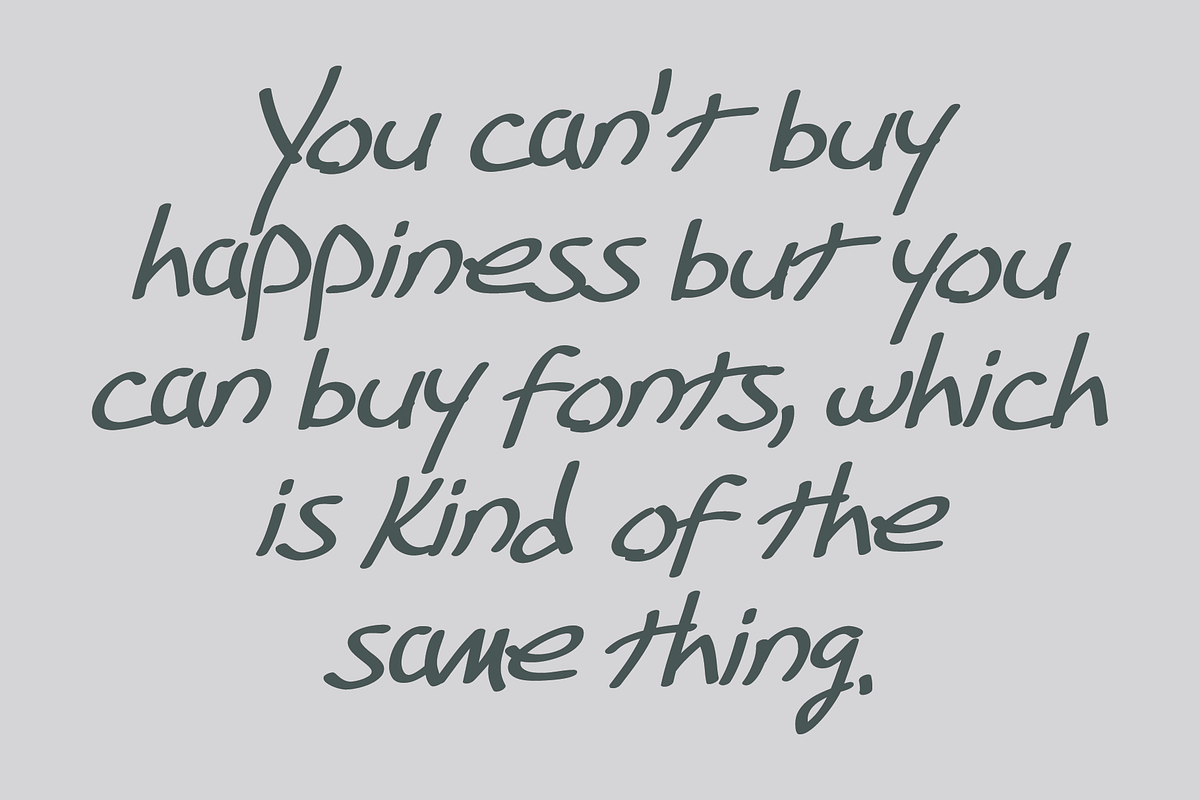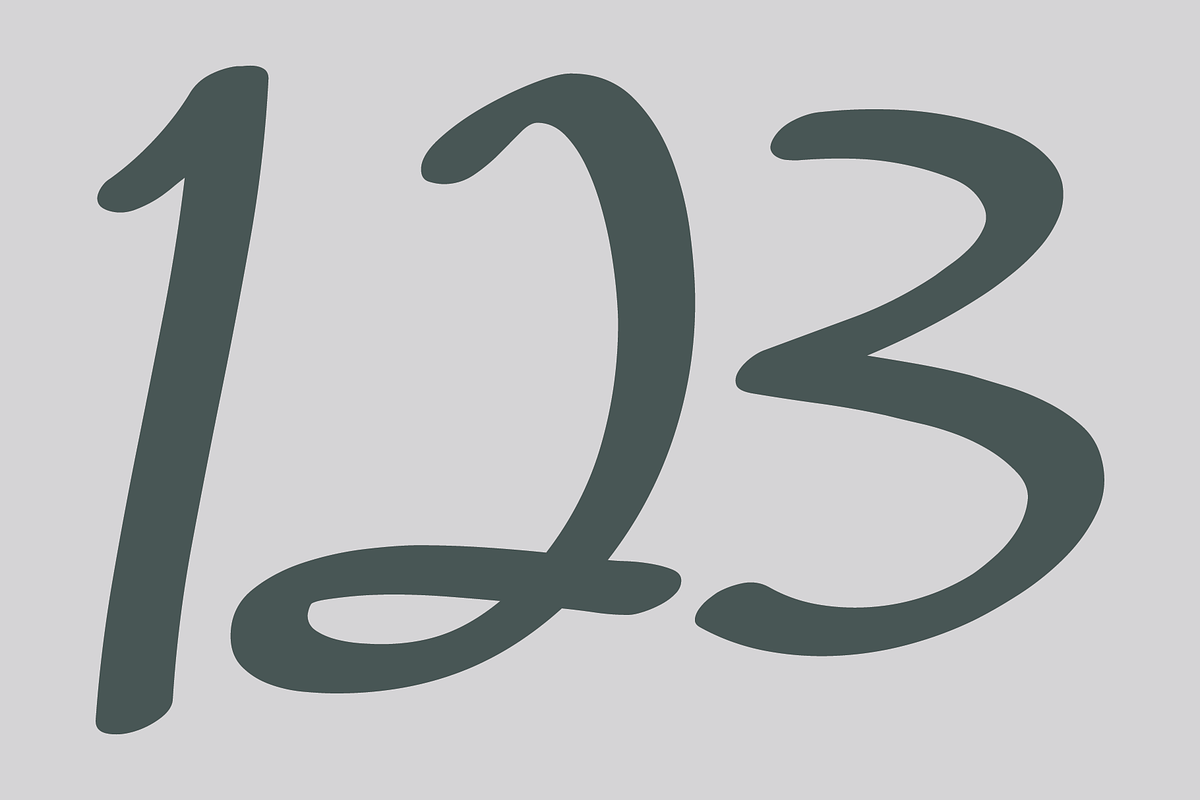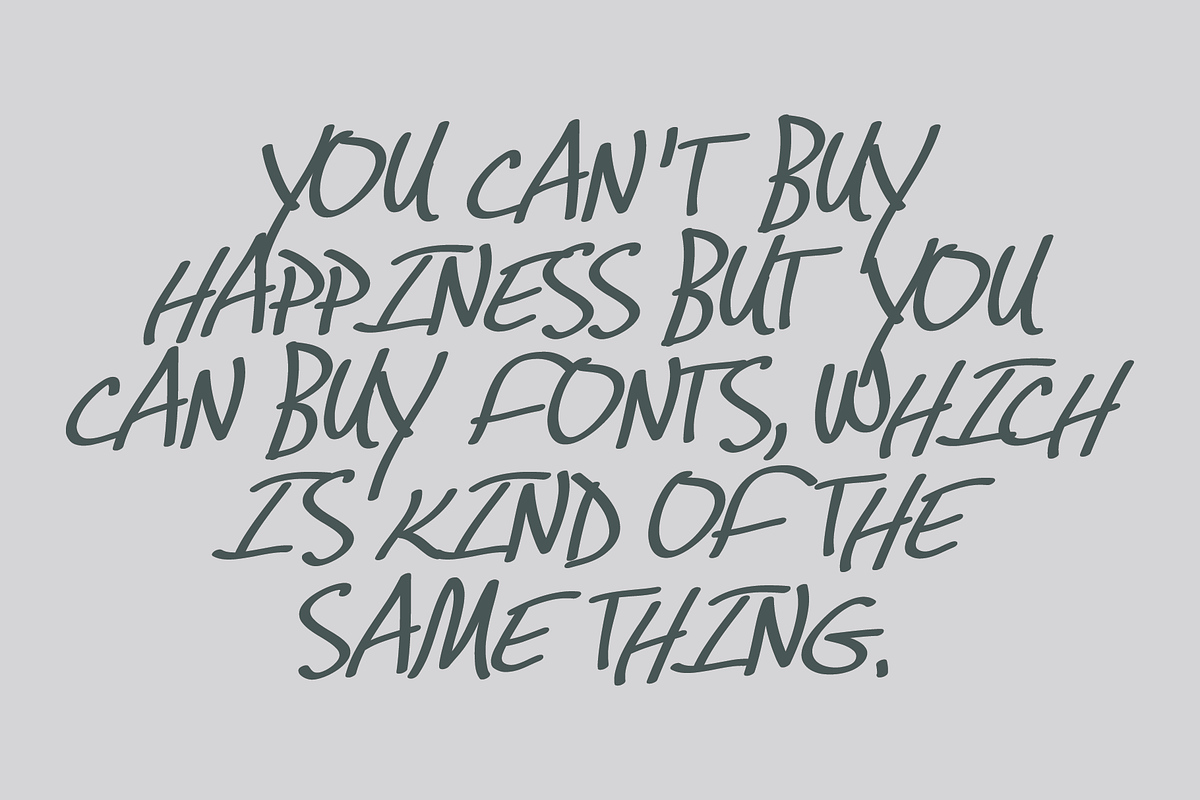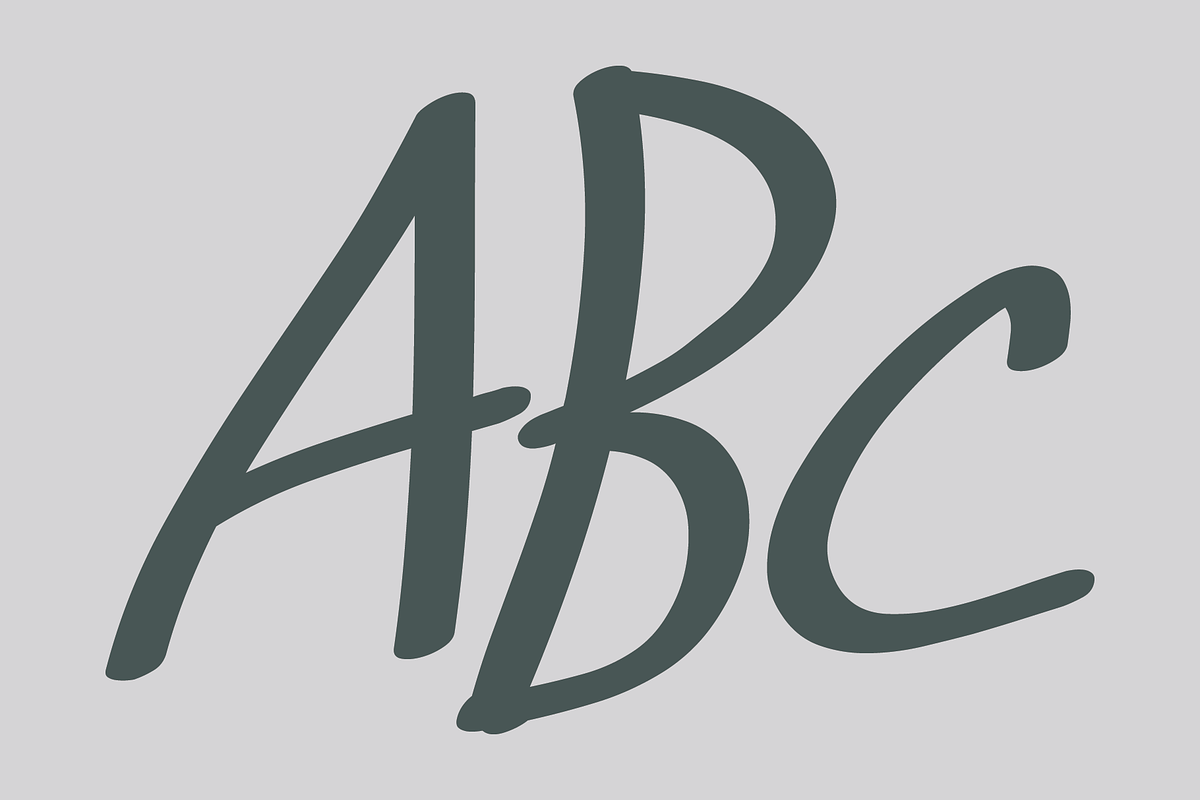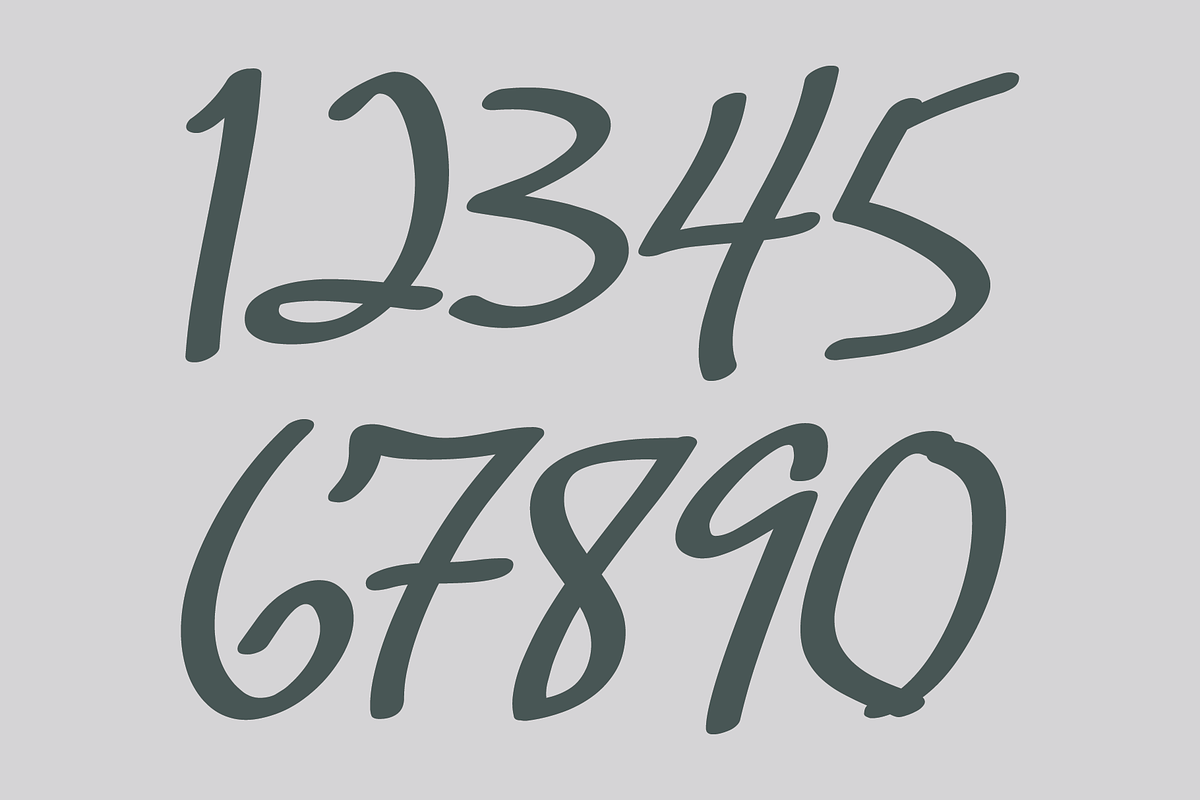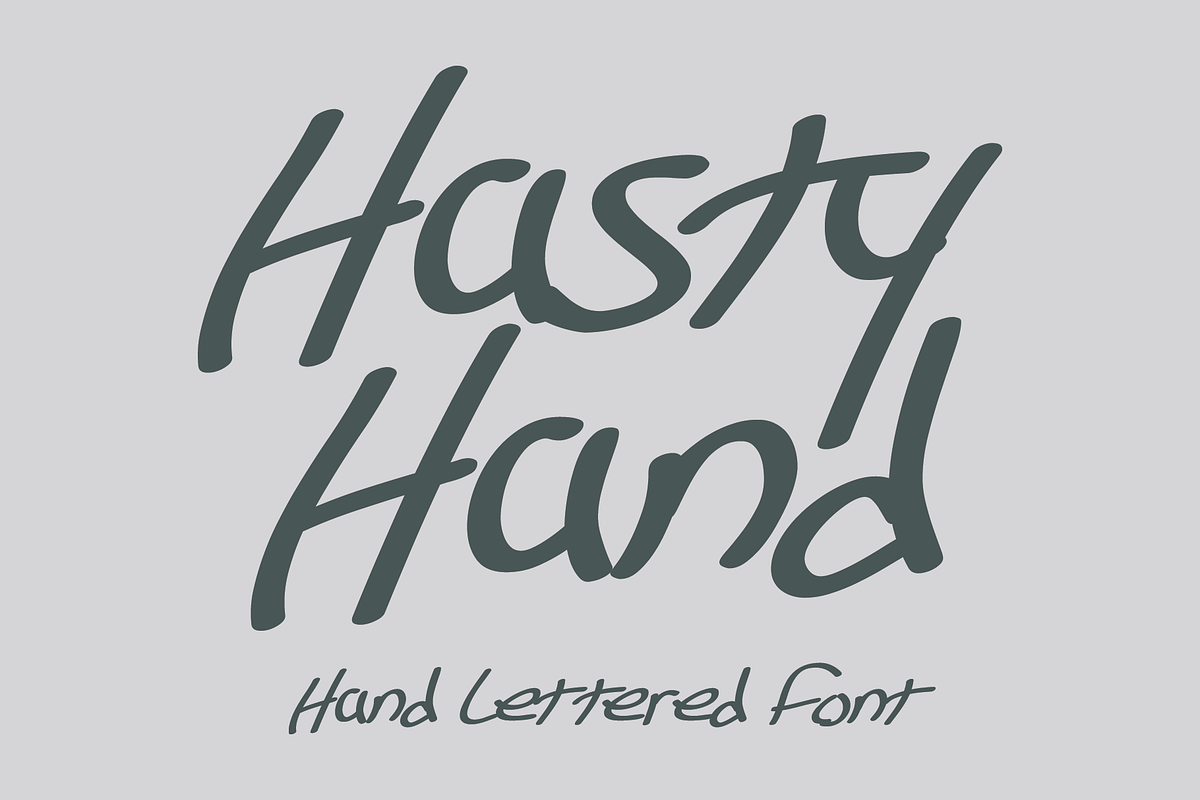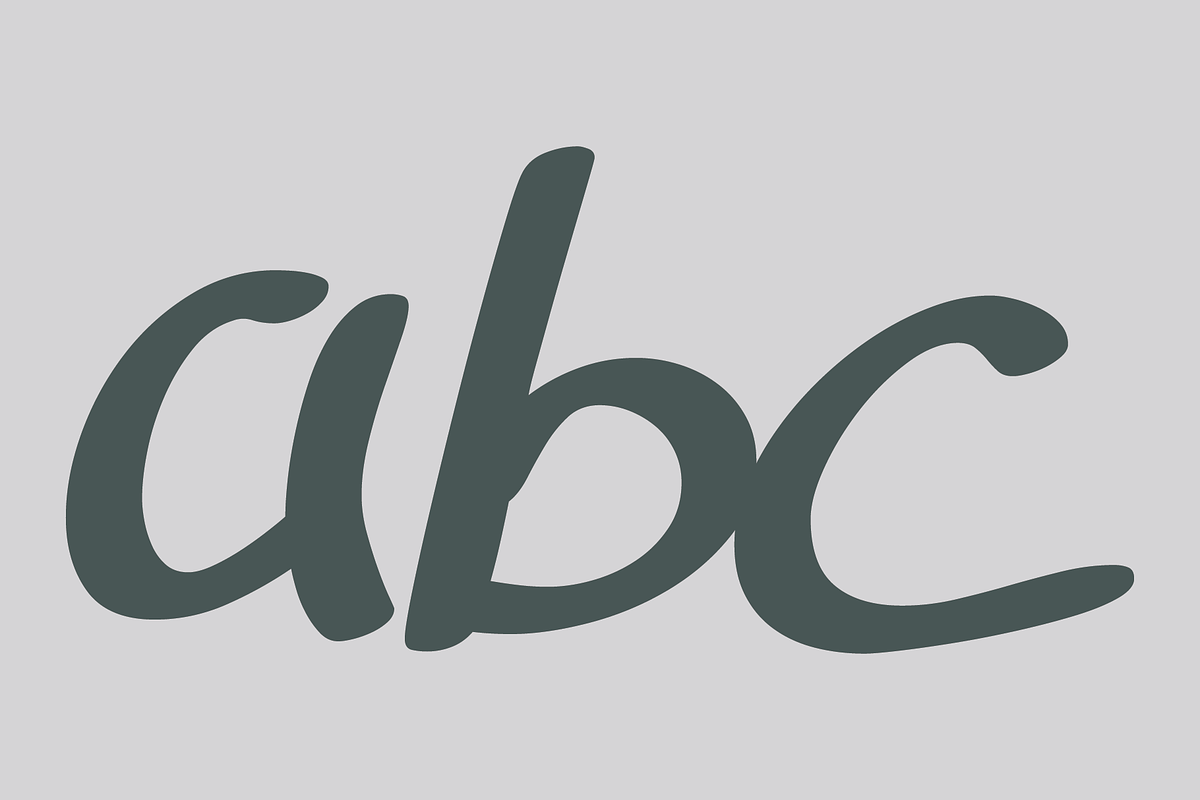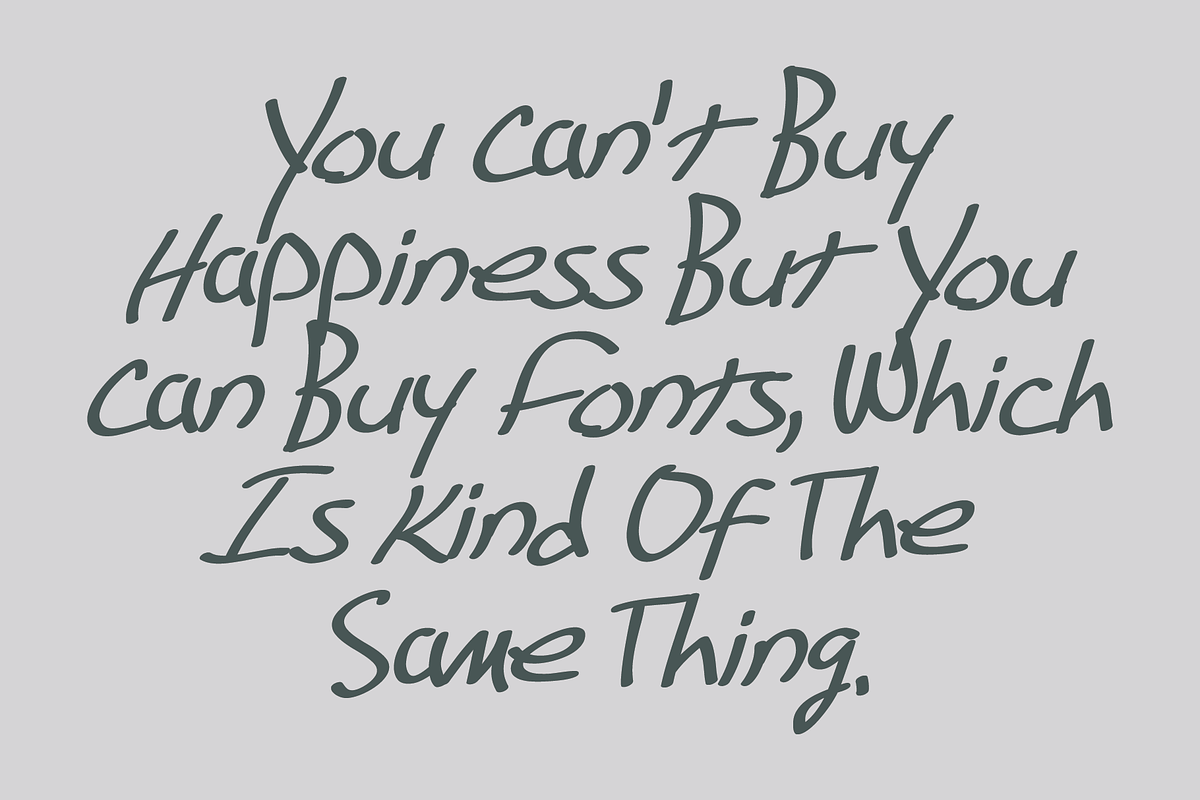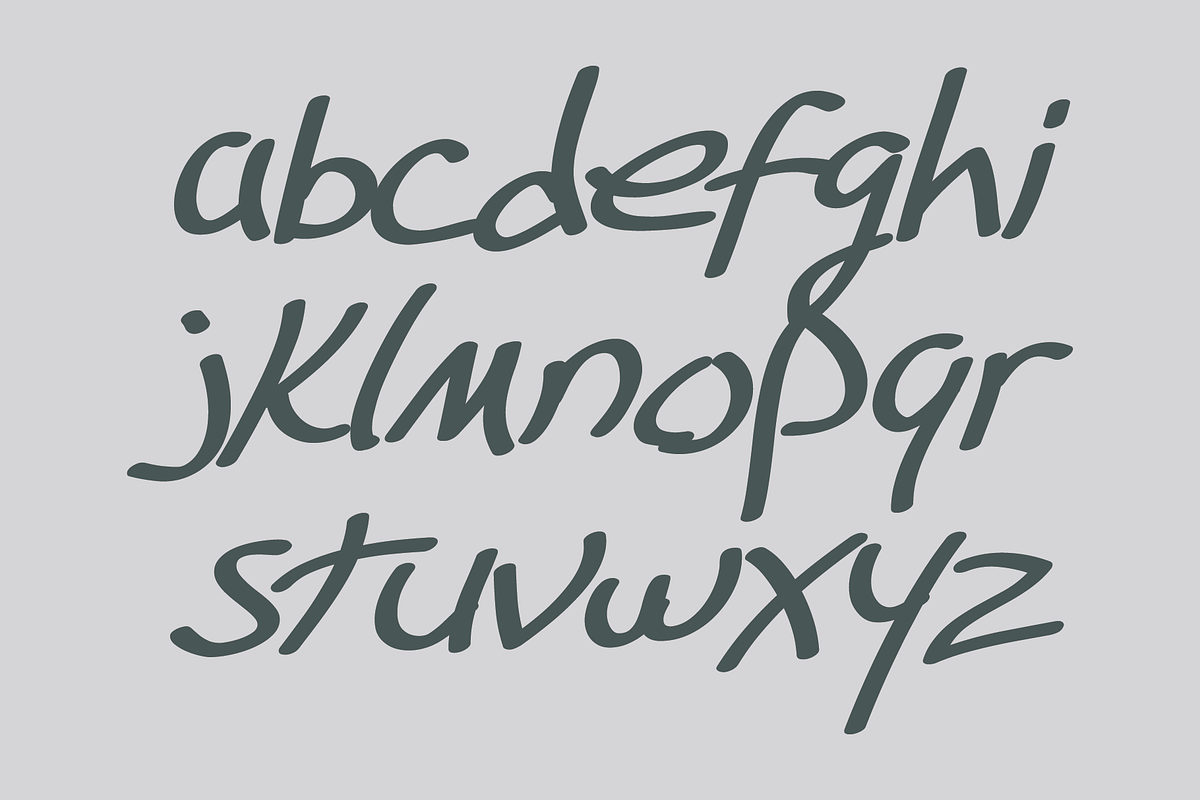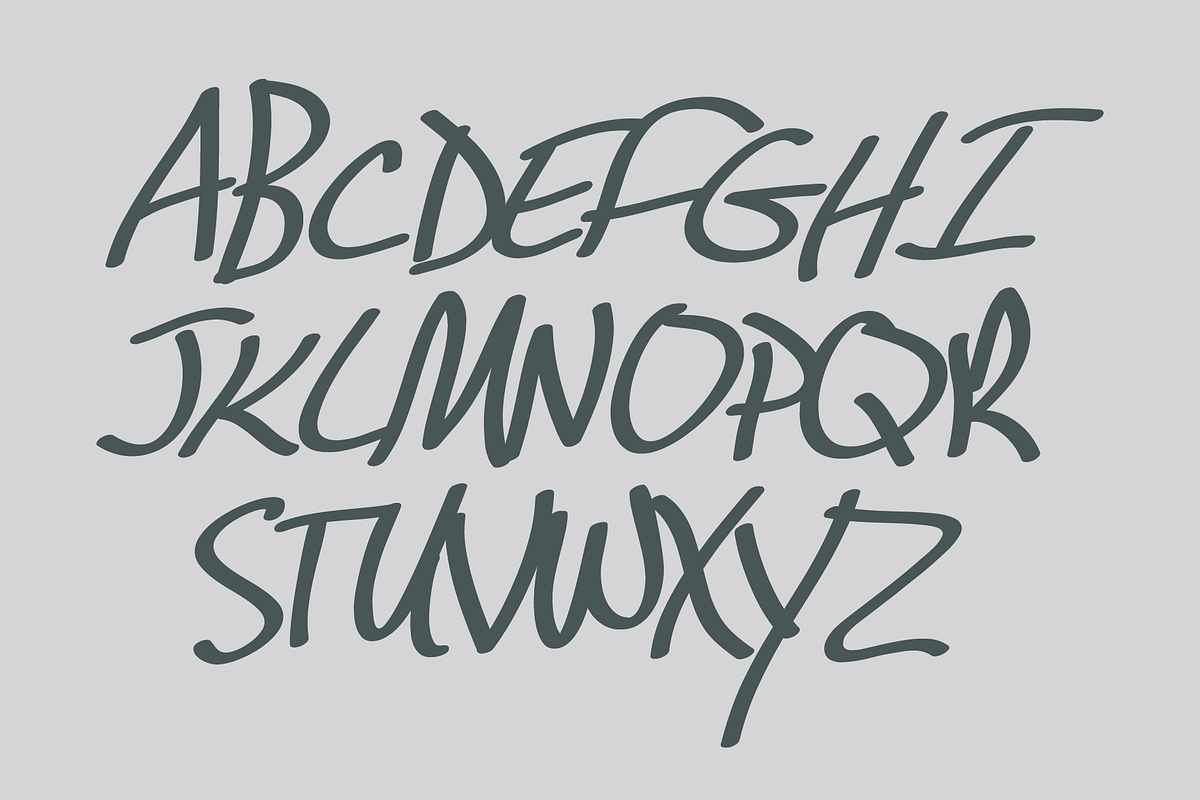
Hasty Hand - Hand Lettered Font
Hasty Hand is a hand-lettered sans serif font whose appearance suggests that it is the work of someone who writes in haste. The font has an uppercase and lowercase alphabet, numbers, punctuation, symbols, and miscellaneous characters. Hasty Hand is ideal for use where a very casual feel is desired.